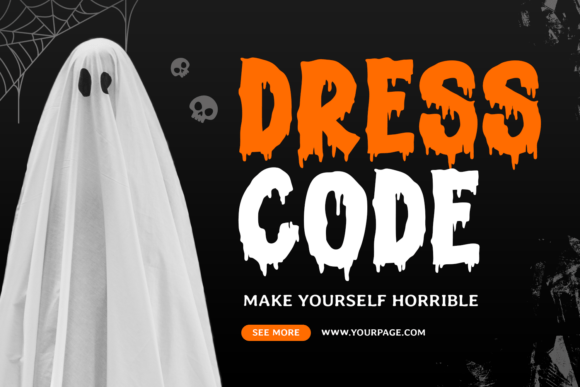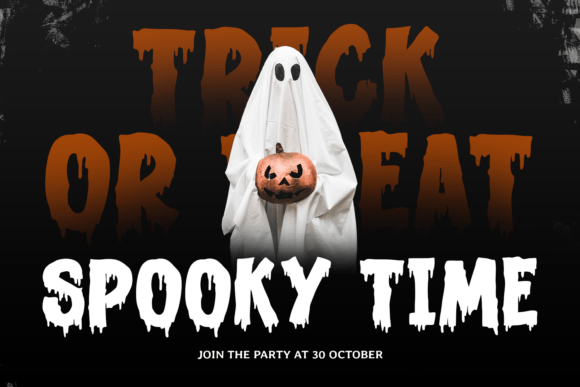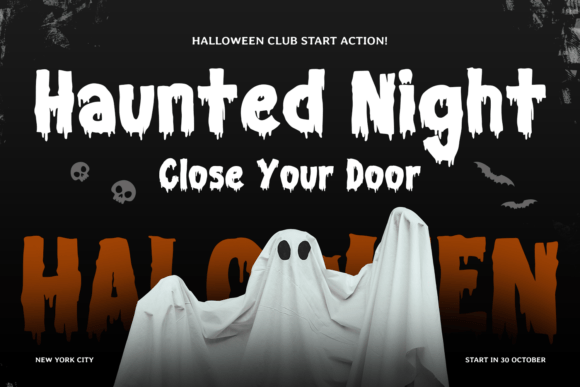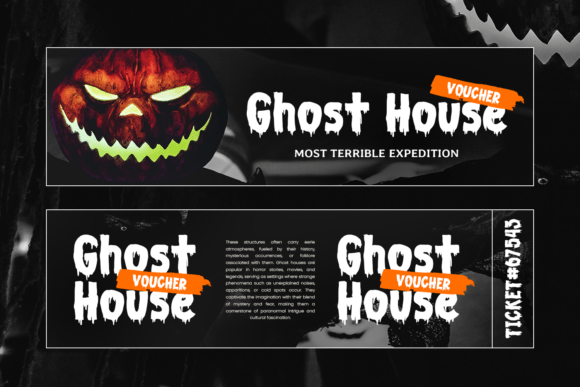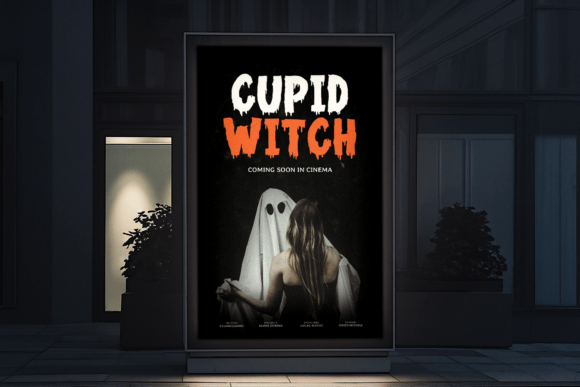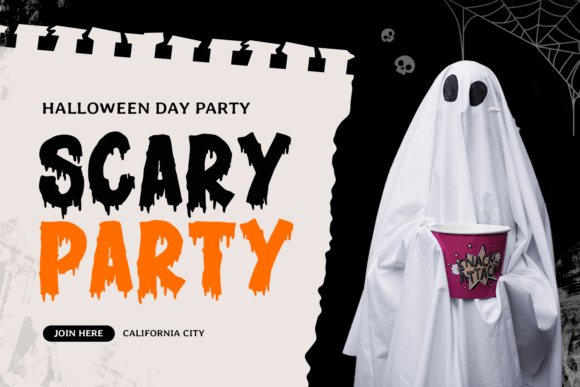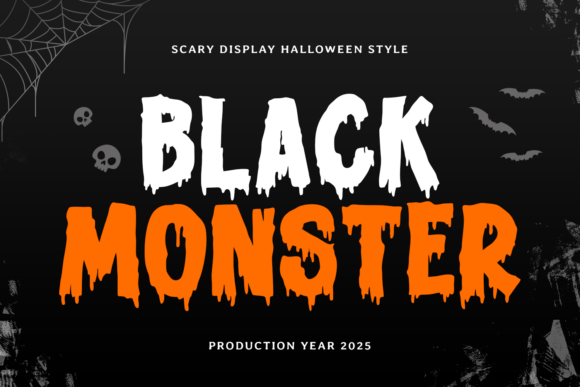
Unleash the Terror with the Black Monster Font: A Spine-Chilling Typeface for Halloween
As the spookiest time of the year approaches, designers and crafters are on the lookout for the perfect font to capture the essence of Halloween horror. Look no further than the Black Monster Font, a daring and menacing display typeface that embodies the dark, eerie atmosphere of October’s nights. With its bold, angular letterforms and sharp, beastly edges, this font is designed to evoke a sense of terror and dark energy, making it perfect for a wide range of Halloween-themed projects.
The Perfect Font for Horror-Themed Designs
The Black Monster Font is a decorative, monstrous typeface that brings a fierce, shadowy presence to your designs. Its heavy structure and ominous details create an impactful visual that grabs attention and sets the tone for fear and excitement. Whether you’re planning a spooky movie marathon, a monster-themed party, or simply looking to add a touch of horror to your Halloween creations, this font is the perfect choice.
Key Features of the Black Monster Font
- Bold and Angular Letterforms: The Black Monster Font features bold, angular letterforms that are perfect for creating eye-catching headlines and titles.
- Sharp, Beastly Edges: The font’s sharp, beastly edges add a touch of horror and menace to your designs, making it perfect for Halloween-themed projects.
- Decorative, Monstrous Features: The font’s decorative, monstrous features bring a fierce, shadowy presence to your designs, making it perfect for creating spooky and eerie atmospheres.
- Heavy Structure and Ominous Details: The font’s heavy structure and ominous details create an impactful visual that grabs attention and sets the tone for fear and excitement.
Uses for the Black Monster Font
The Black Monster Font is perfect for a wide range of Halloween-themed projects, including:
- Haunted House Signs: Create spooky signs that will welcome visitors to your haunted house or haunted attraction.
- Horror-Themed Event Posters: Create eye-catching posters that will promote your horror-themed event or party.
- Spooky Movie Marathon: Add a touch of horror to your movie marathon with the Black Monster Font.
- Monster-Themed Party: Create spooky and eerie decorations and invitations for your monster-themed party.
Why Choose the Black Monster Font?
There are many fonts to choose from, but the Black Monster Font stands out from the rest. Here are just a few reasons why:
- Unique and Eye-Catching: The Black Monster Font is a unique and eye-catching font that will make your designs stand out from the rest.
- Perfect for Halloween: The font is specifically designed for Halloween-themed projects, making it the perfect choice for designers and crafters.